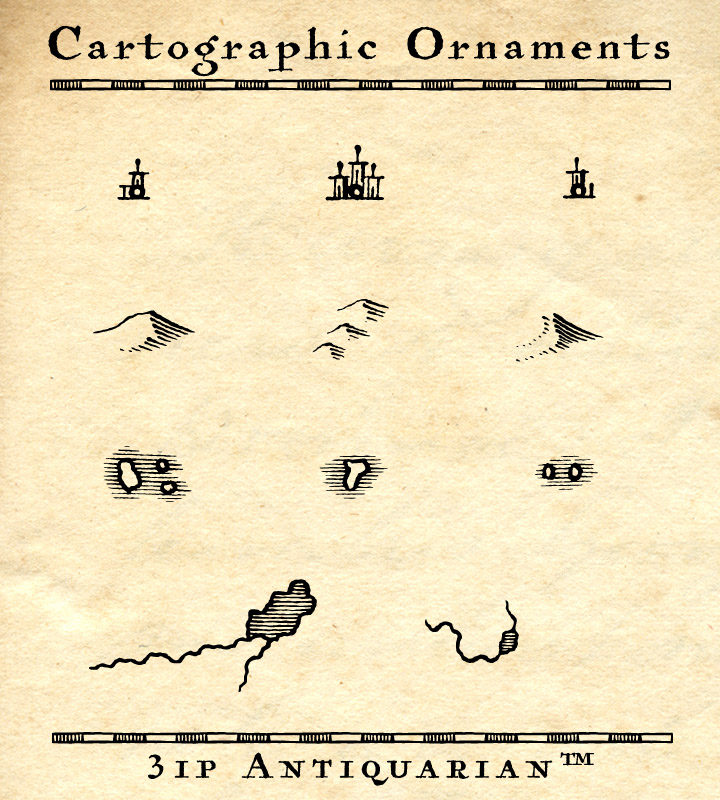
Antiquarian Set™
Our Antiquarian Set includes both our Old Map Fonts, Antiquarian and Antiquarian Scribe, modeled after two styles of handlettering on Henri Abraham Chatelain's Atlas Historique, a famous world Atlas from the early 1700s. Sold separately at US$39 apiece, these fonts are available together for just US$59. (Note: the OpenType release includes true small caps, old-style and lining figures, and numerous ligatures, as well as Central/Eastern European and Greek alphabets.) | Order  Buy old fonts